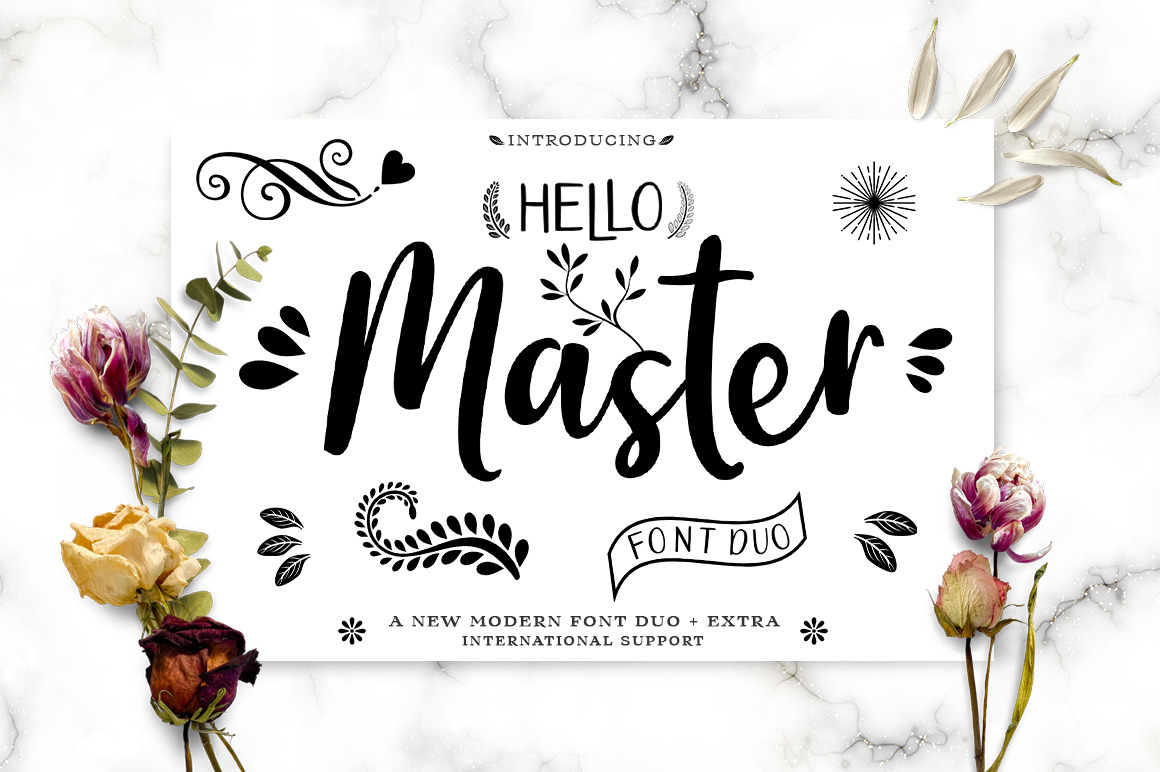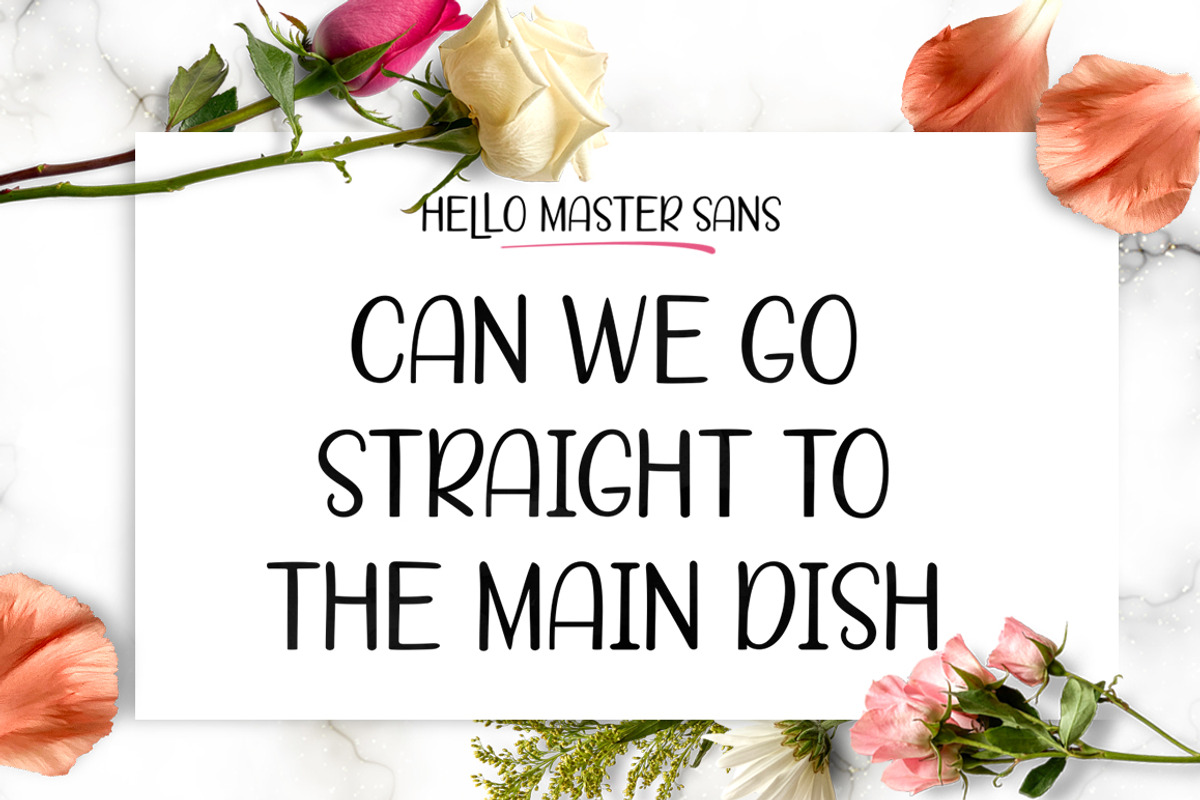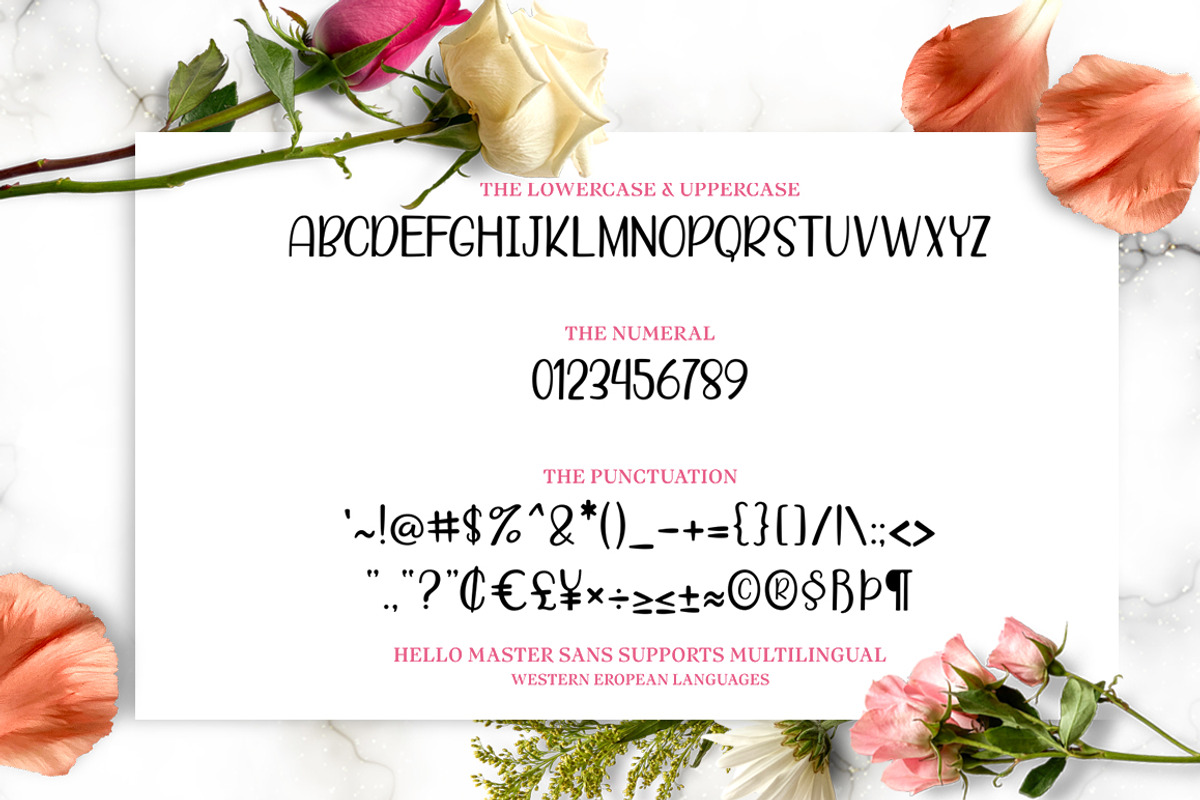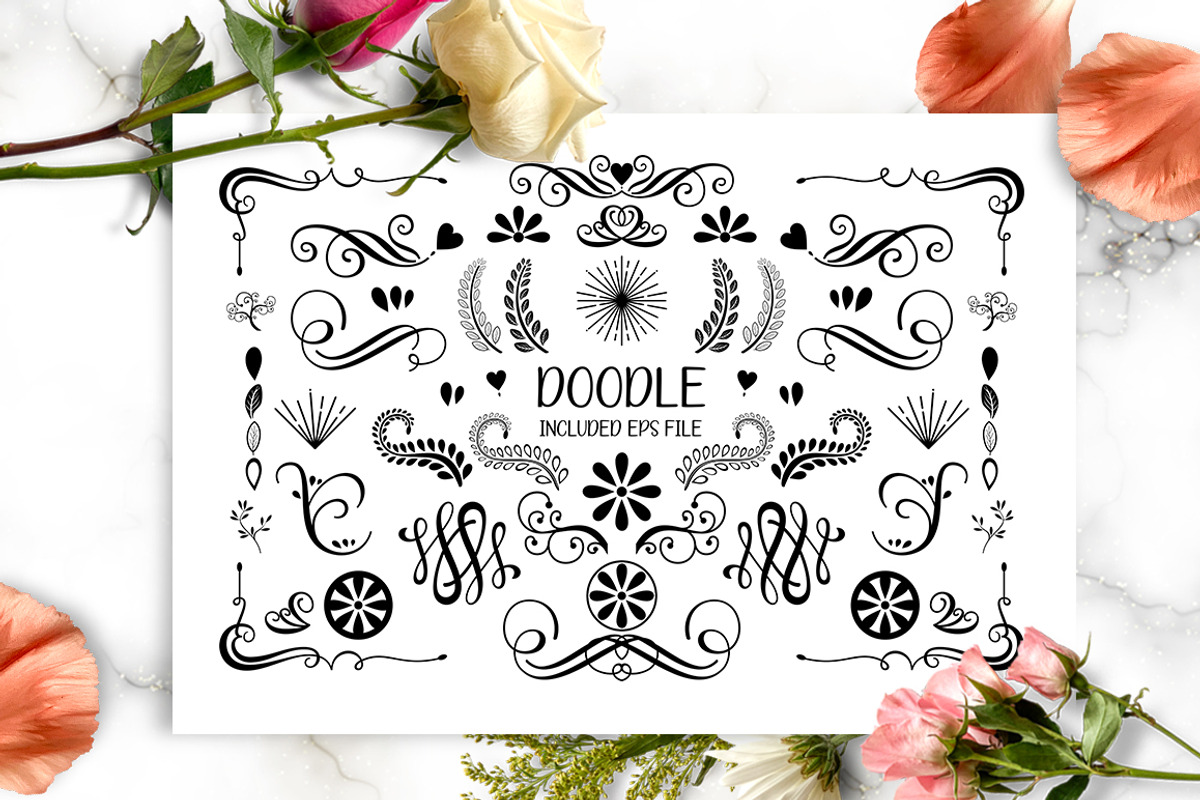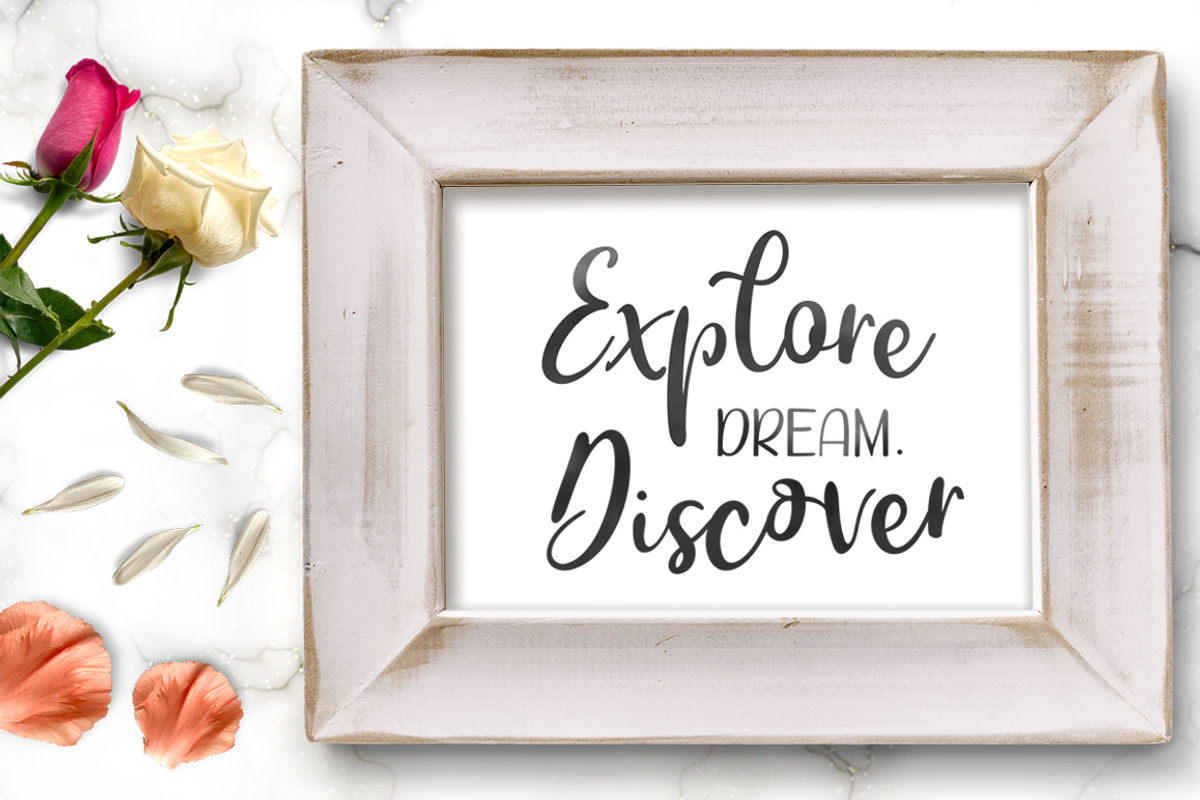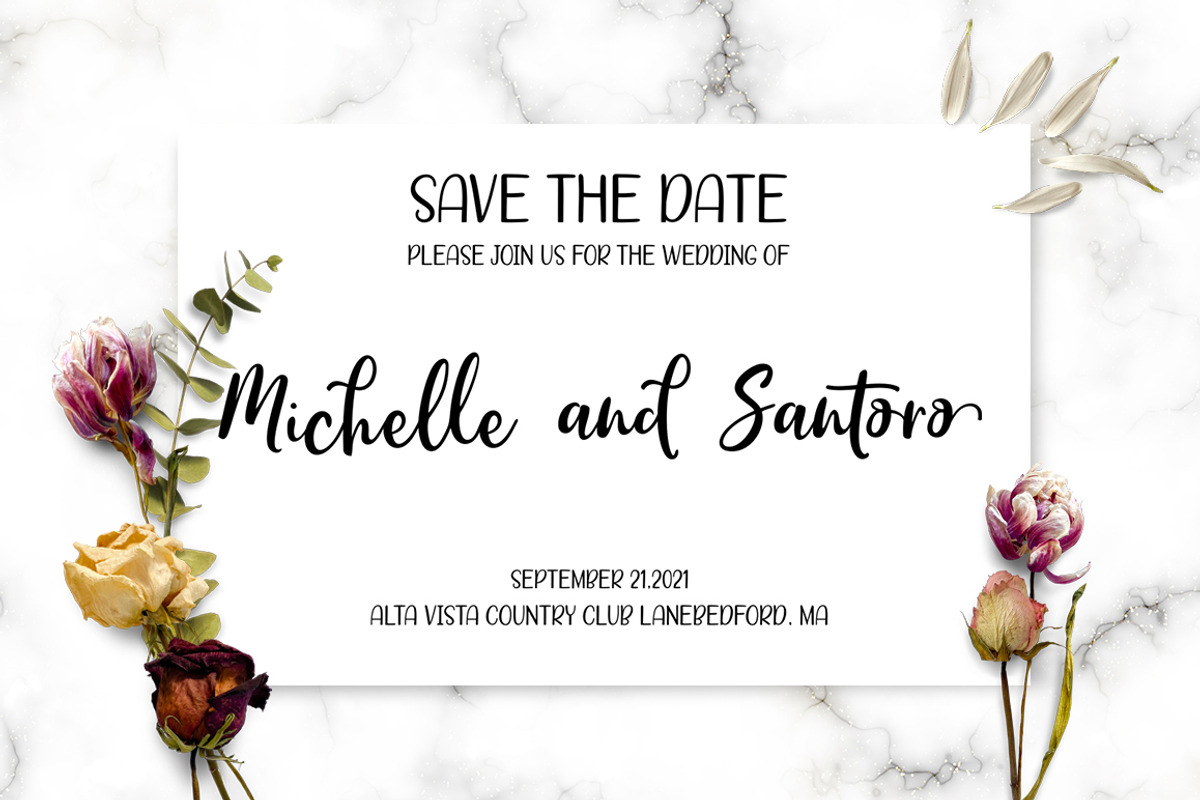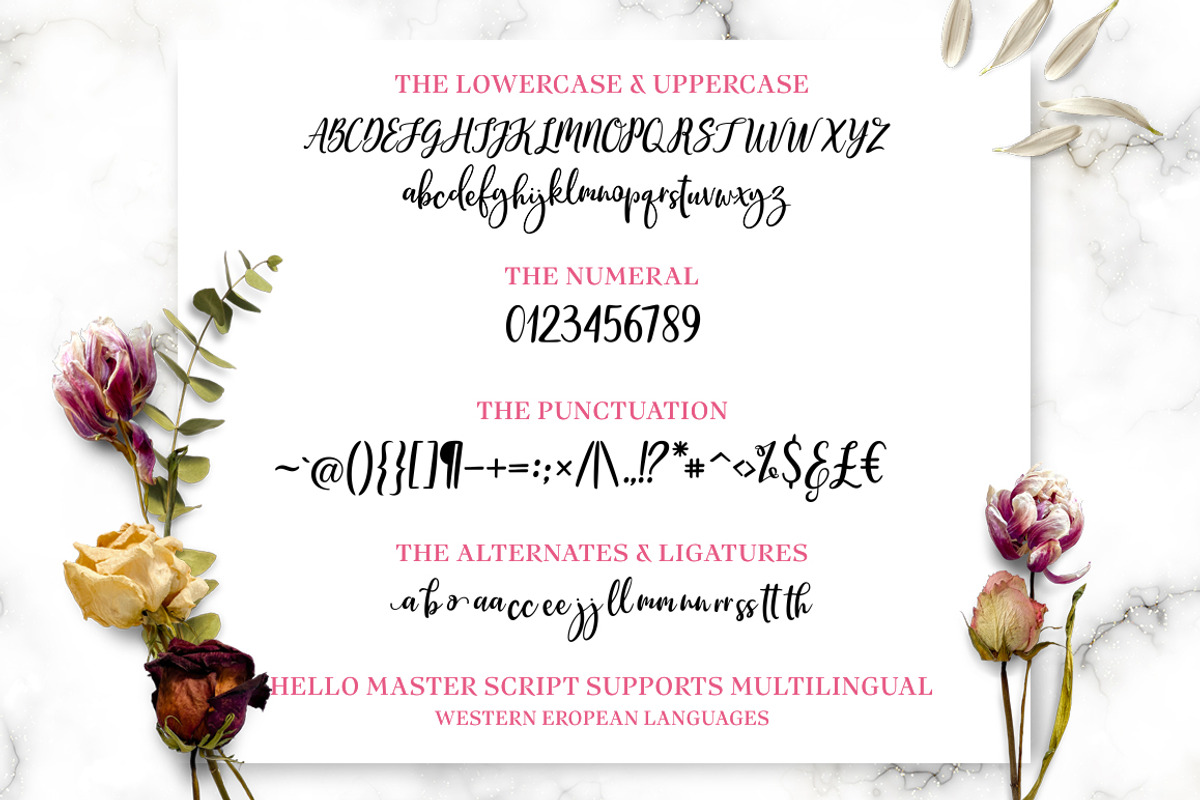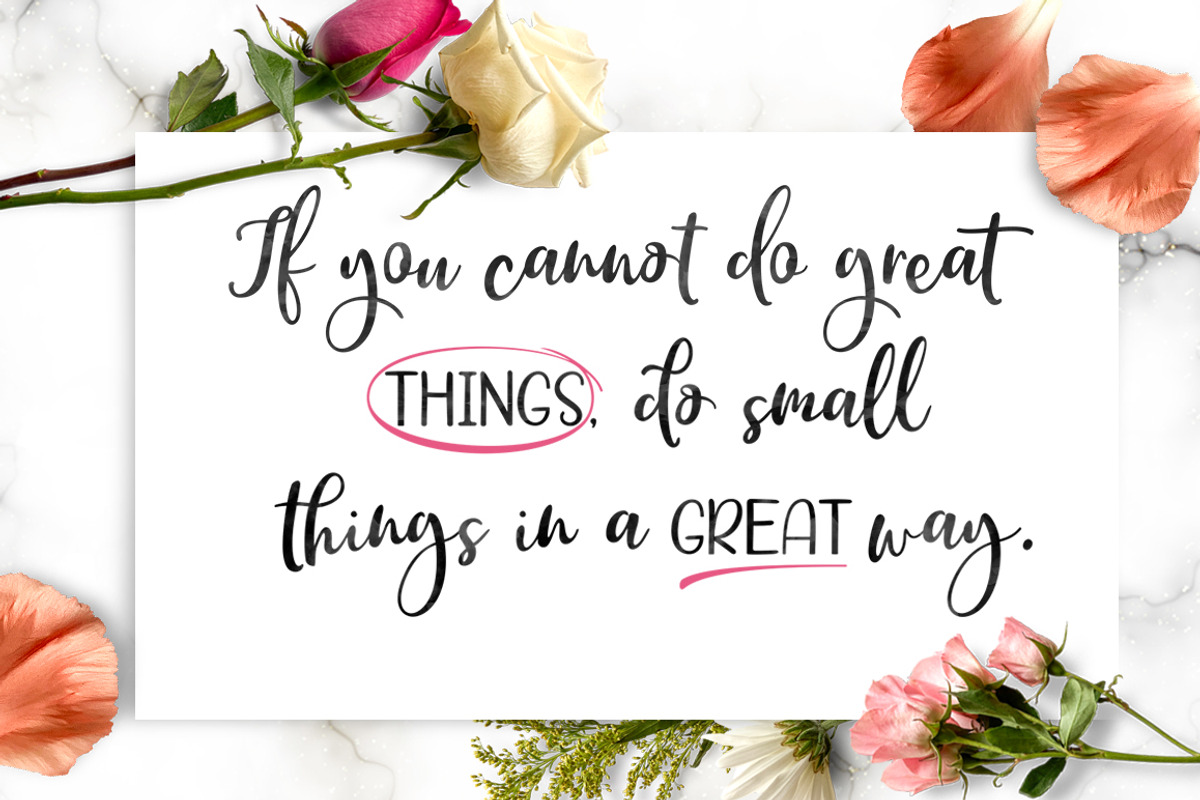
Hello Master FONT DUO with Doodle
Hello Master Script This type is a new modern script font with an irregular base line. Trendy and feminine style. Hello Master Script Font DUO looks beautiful in wedding invitations, thank you cards, quotes, greeting cards, logos, business cards, and more. Perfect for use in ink or watercolors. Including beginning and end letters, alternatives and support for many languages.